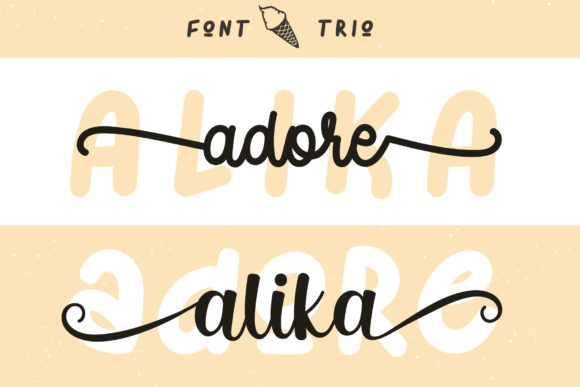
Journey into a world of elegance and charm with Adore Alika Font, the perfect script font family that will transform your creative visions into captivating realities. Crafted by the talented hands at airotype, Adore Alika offers a harmonious blend of two fonts, each possessing a unique character yet flawlessly complementing the other.
Step into a realm of possibilities where creativity flourishes, and designs come alive with a touch of chic and cheer. Adore Alika is your gateway to enchanting wedding banners, where every letter dances with grace, capturing the essence of love and celebration.
With Adore Alika, you hold the key to unlocking a treasure chest of design possibilities. Effortlessly create enchanting invitations, heartwarming greeting cards, and eye-catching posters that leave a lasting impression. Let your imagination soar as you transform ordinary words into extraordinary works of art.
Embark on a typographic adventure with Adore Alika, where every glyph and swash becomes an element of your creative masterpiece. PUA encoding ensures seamless access to a world of symbols and flourishes, empowering you to add a touch of magic to your designs with unparalleled ease.
Adore Alika is more than just a font; it's an expression of your creativity, a reflection of your unique style. Embrace the beauty of calligraphy, and let your designs radiate with elegance and charm.